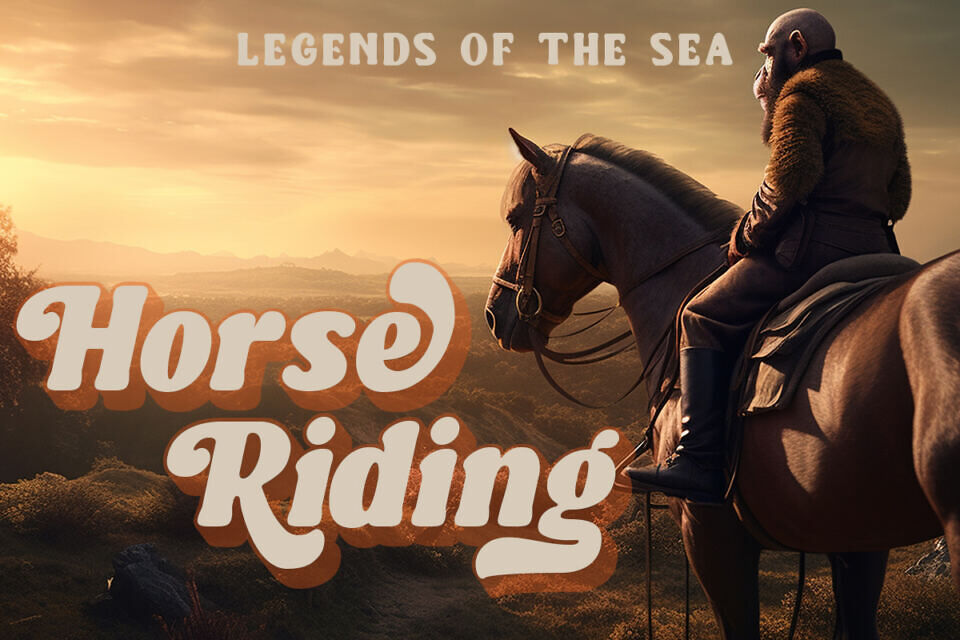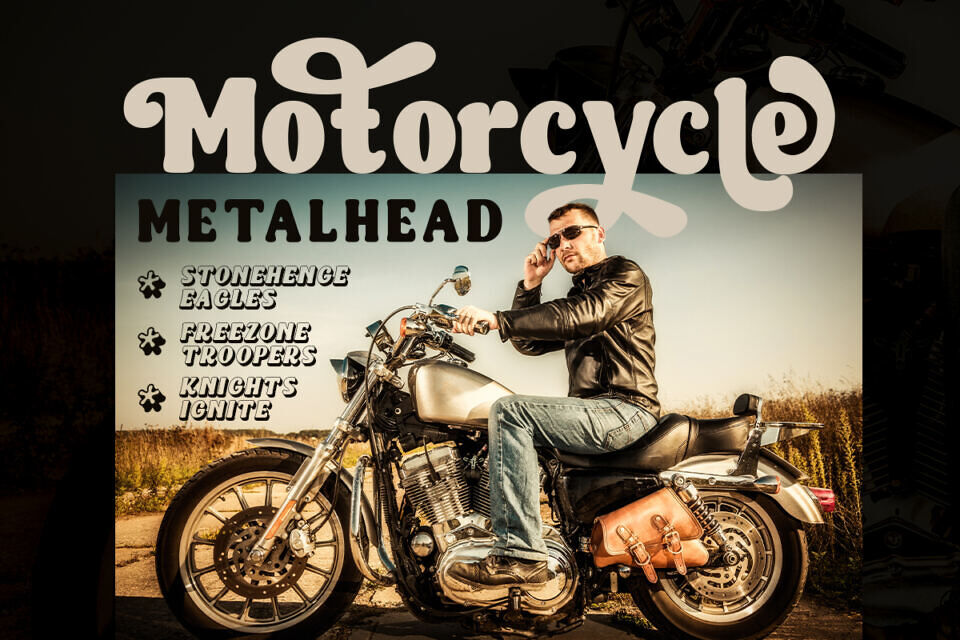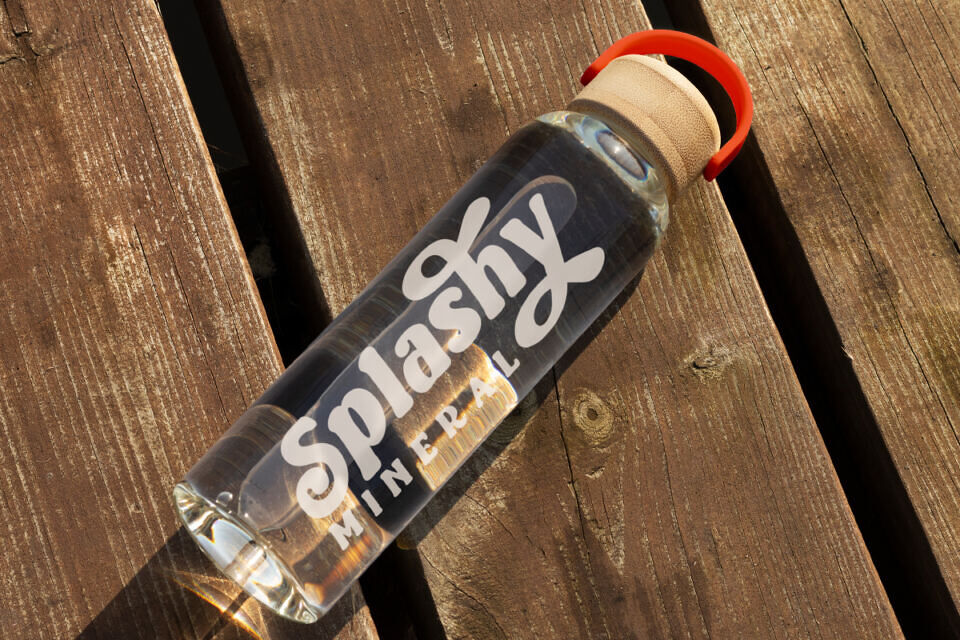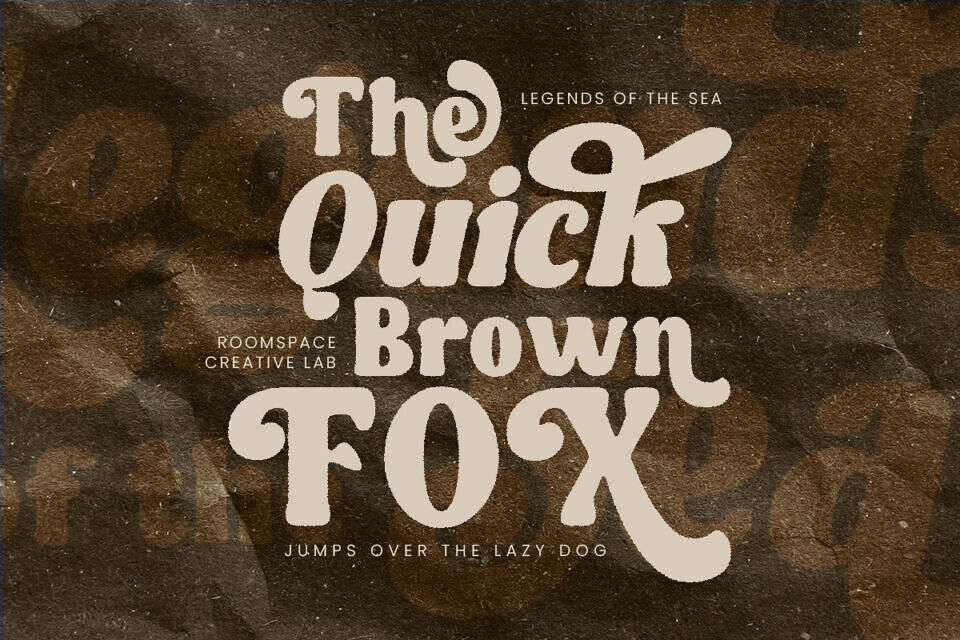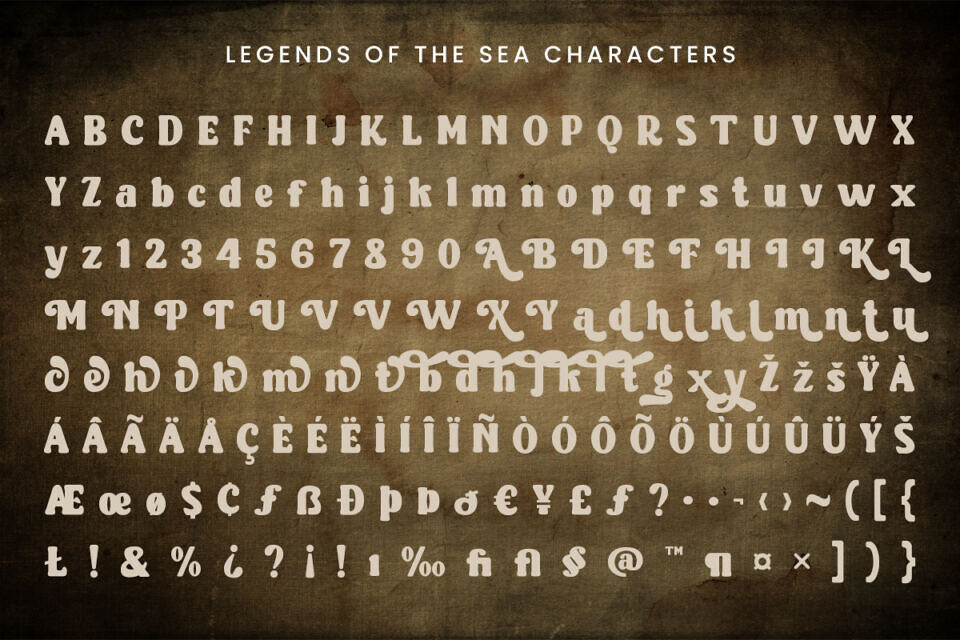
Legends Of The Sea Font
Legends of the Sea is a captivating font that blends the timeless elegance of vintage serif with a modern rounded touch. This font is inspired by the legendary tales of the sea, designed to evoke nostalgia while maintaining a contemporary appeal.
Legends of the Sea Font infuse your designs with a nostalgic feel, featuring smooth, rounded edges that create a friendly and approachable aesthetic, enhancing readability and visual interest. Select letters are adorned with unique, artistic flourishes that add character and distinctive flair to your text. Ideal for a wide range of design projects, from branding and packaging to posters, invitations, and more, this font provides endless creative possibilities.